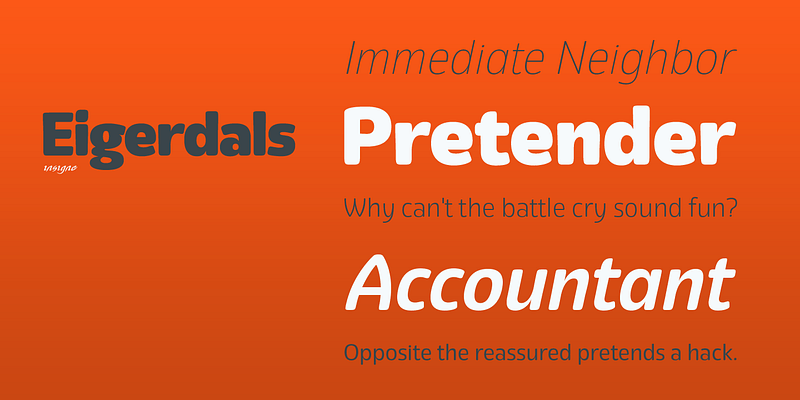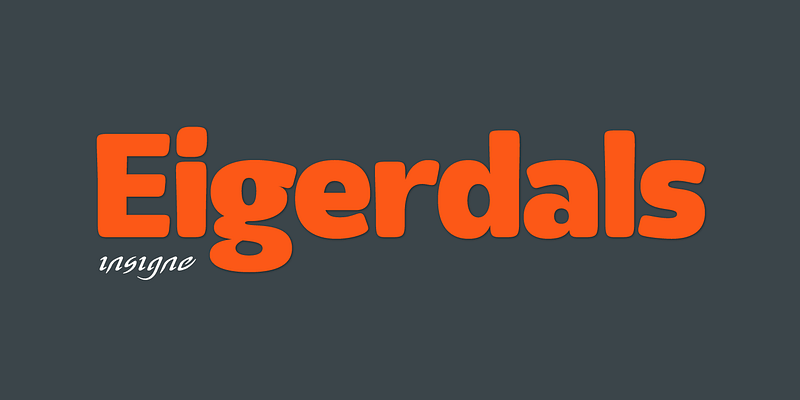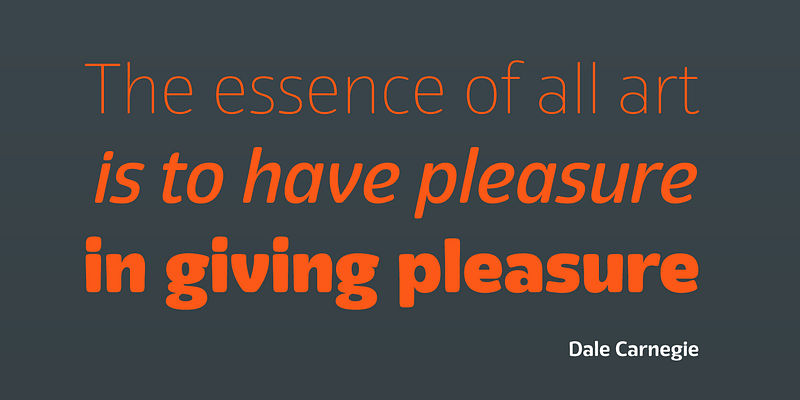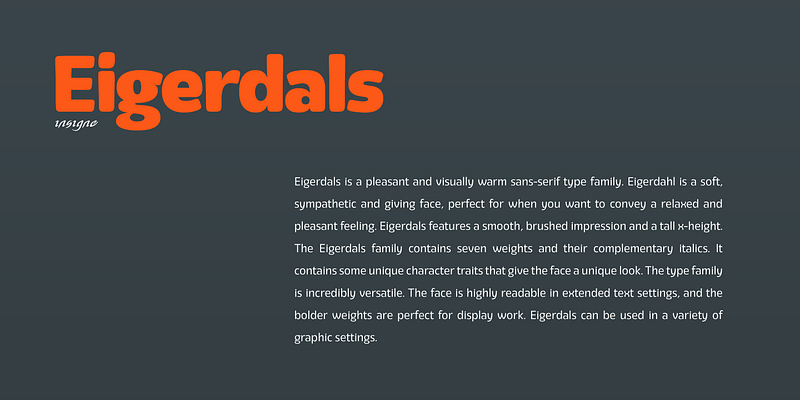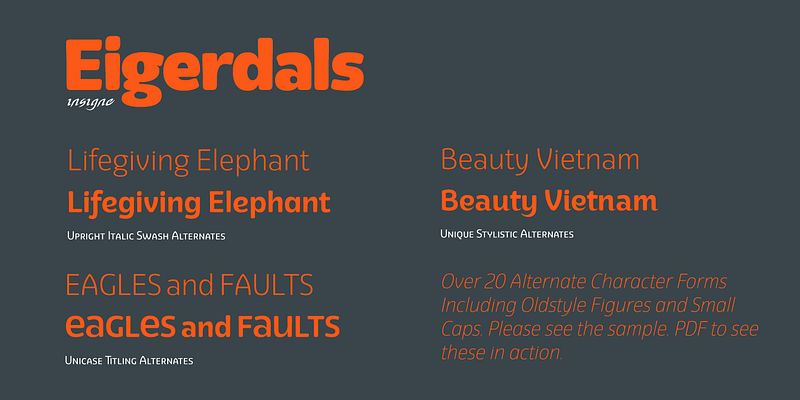
Eigerdals is a soft, amiable face with a smooth, brushed impression and a tall x-height with unique character traits that give the face a unique look.